Top 20+ Best Script Fonts For Design in 2023
Script fonts combine the elegance of classical calligraphy and handwriting. Script fonts Suitable for Logo, badges, greeting cards, quotes, posters, branding, name card, stationary, design title, art quote, typography, art, modern envelope lettering or book design, happening style like hand-drawn design or watercolor design theme, or any purpose to make our art/design project look pretty and trendy. Before designing or implementing any informational content, you must first choose your font. If you are looking for a more natural feel with casual touch, a good script font is your choice. Here are a few famous examples to get you started.
Obladi Script Font
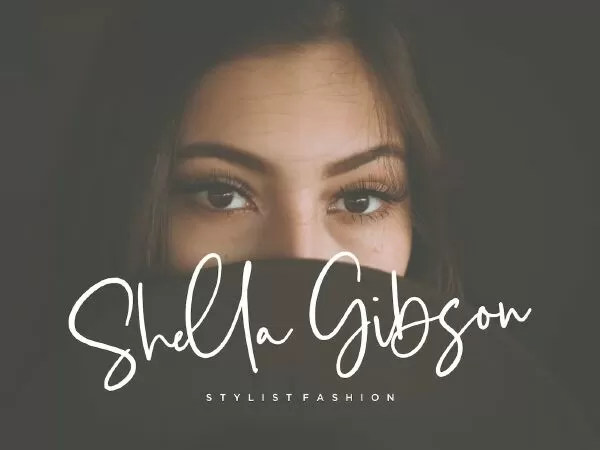
ntroducing by Letterative Studio : Obladi Script Font
Obladi Script is a Modern Calligraphy Script Font Obladi Script is perfect for product packaging, branding project, megazine, social media, wedding, or just used to express words above the background.
Thornton Script Font
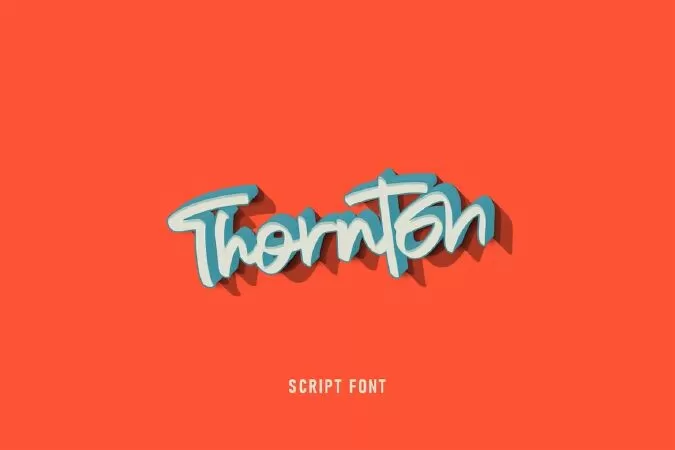
Thornton is a Bold font script that looks elegant when used for your design
Thornton font which is very elegant and modern for you to use and your design interests be it for logos, branding names, posters, podcasts and so on. This is perfect for you all.
Feature 1.Uppercase & Lowercase 2.Numer & Punctuation 3.Multilingual 4.Ligatures There it is!